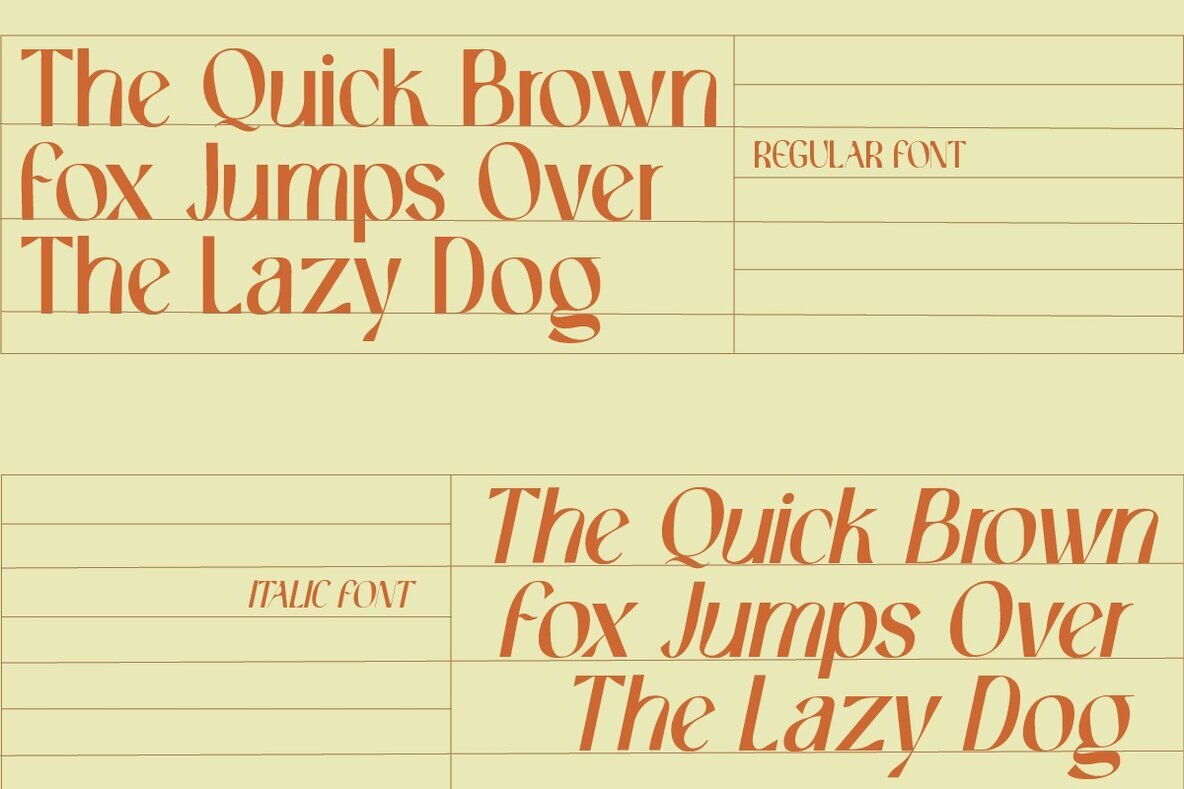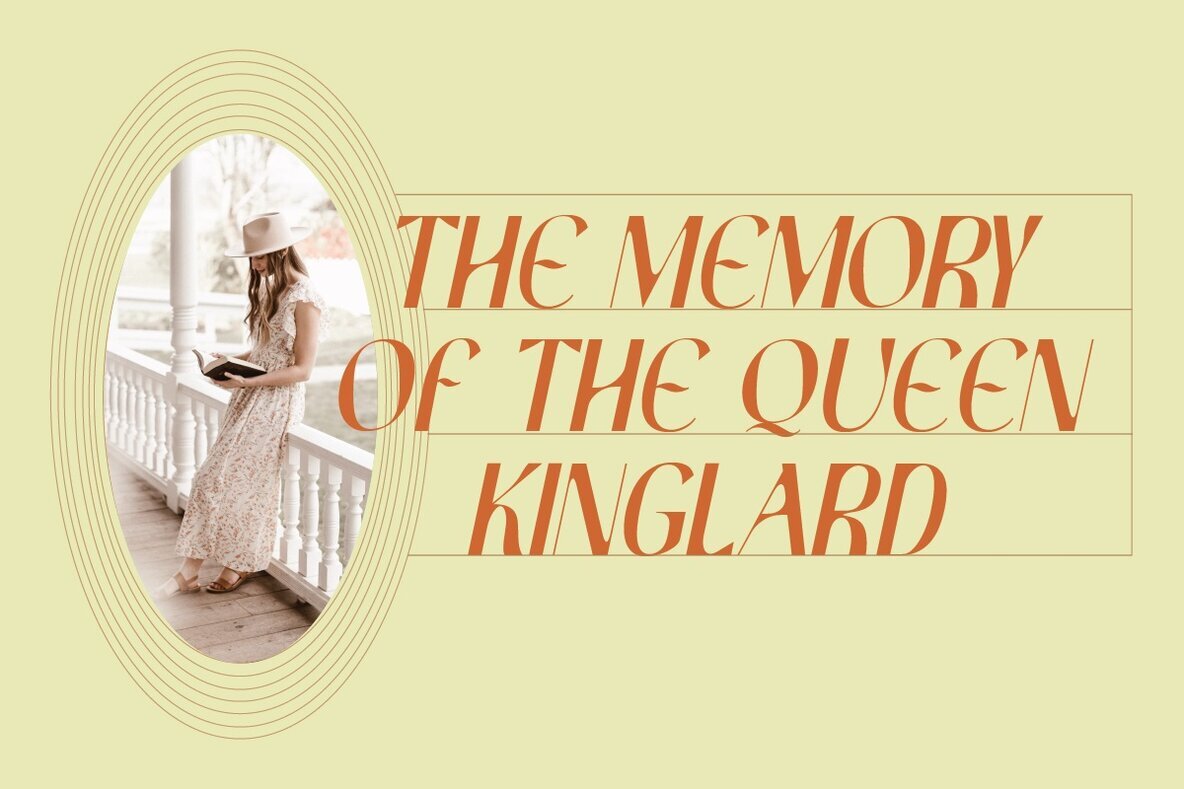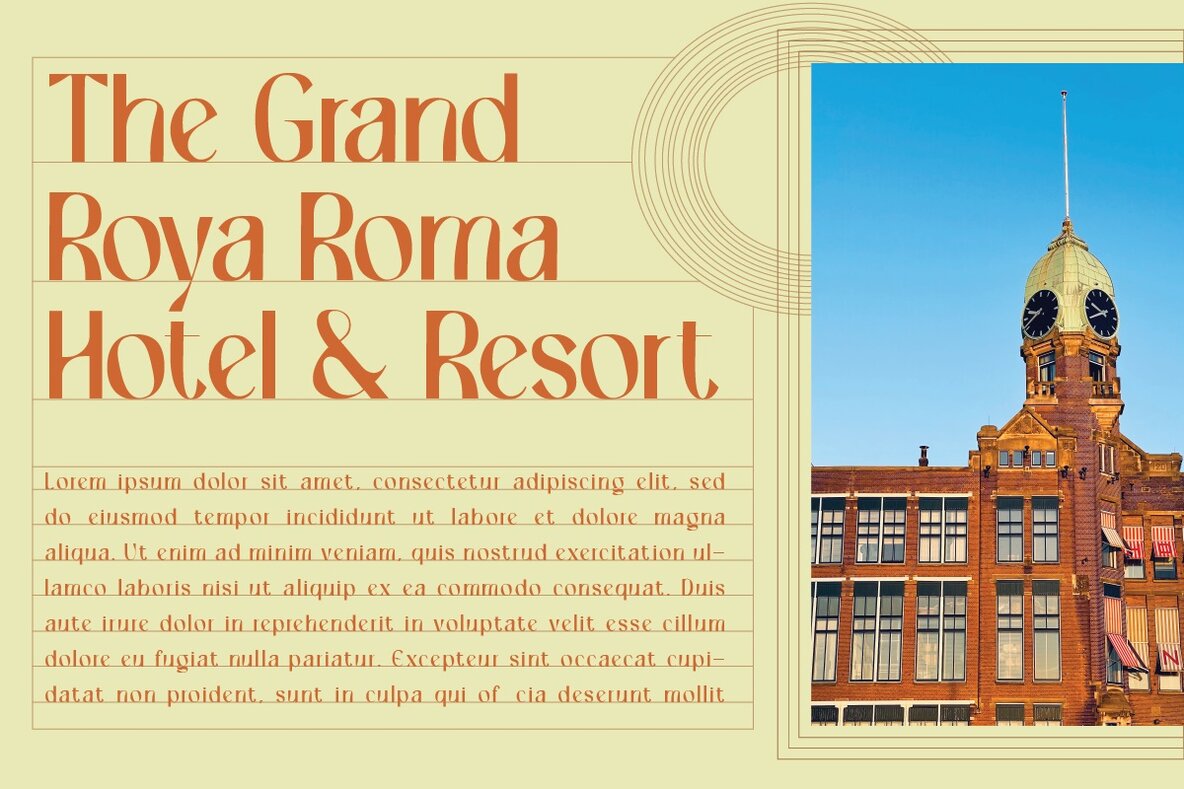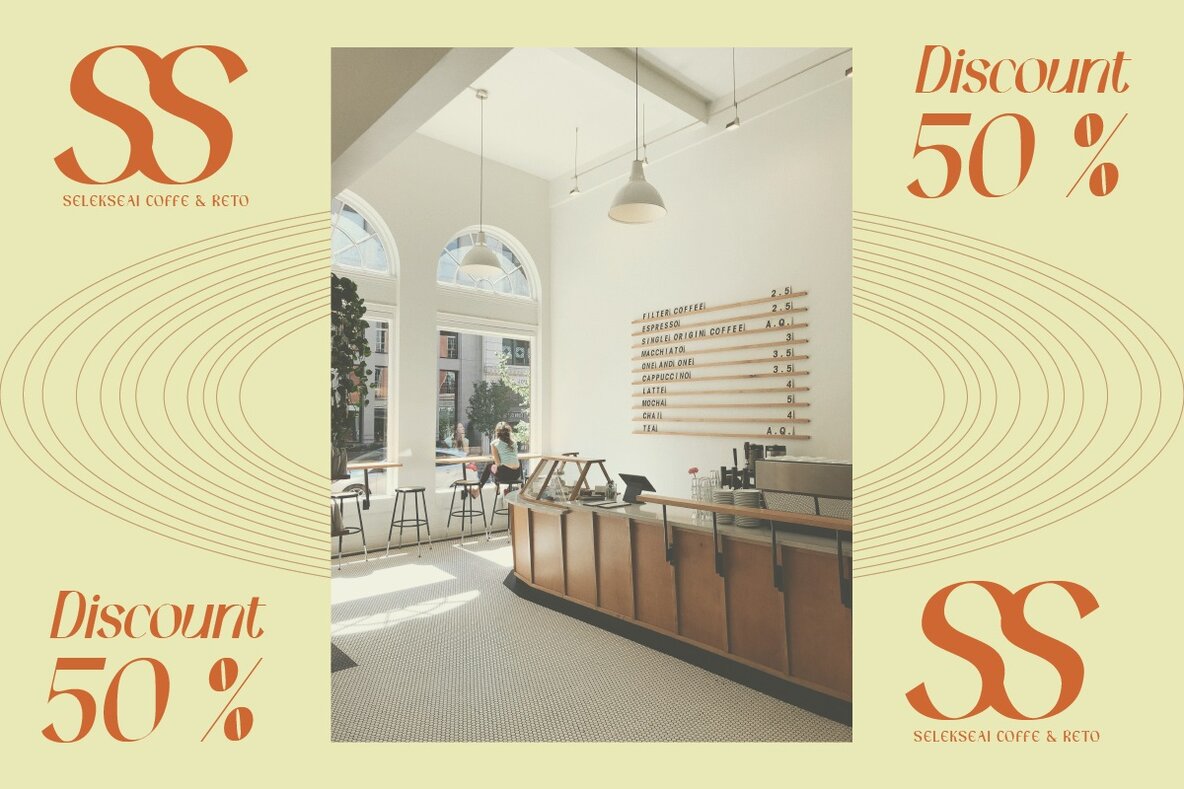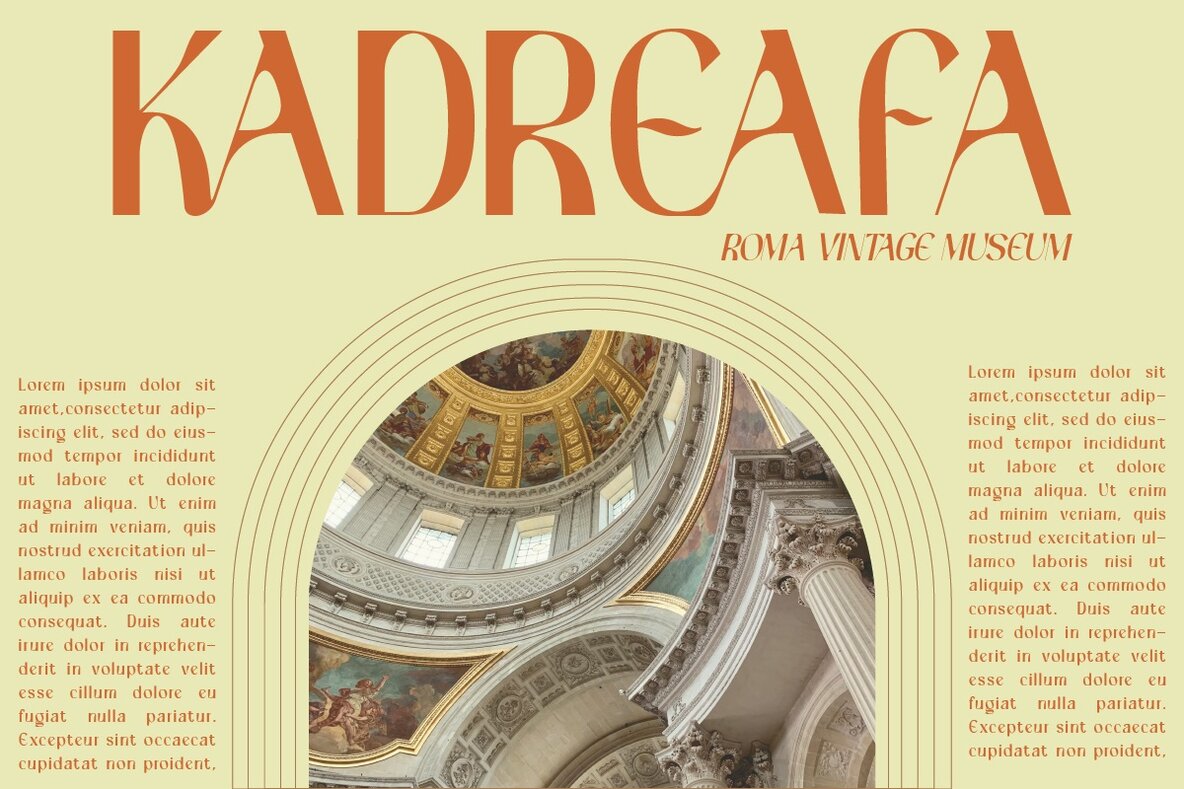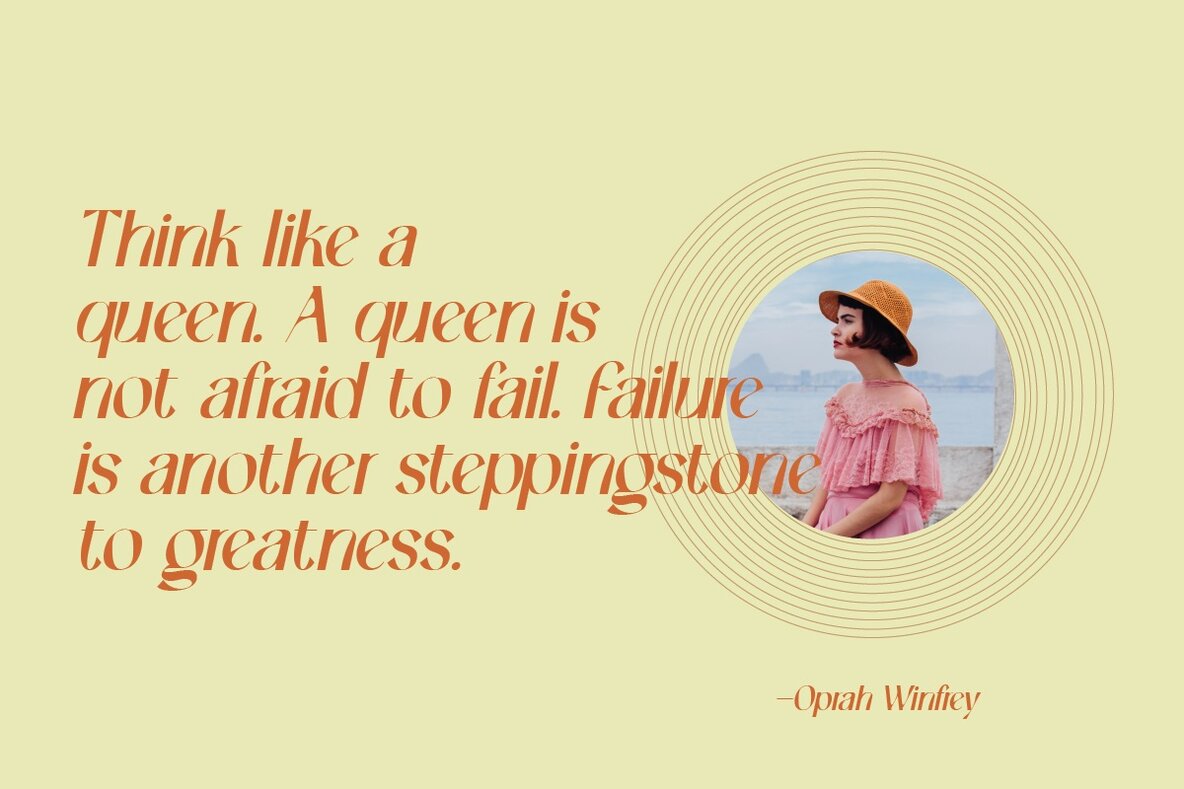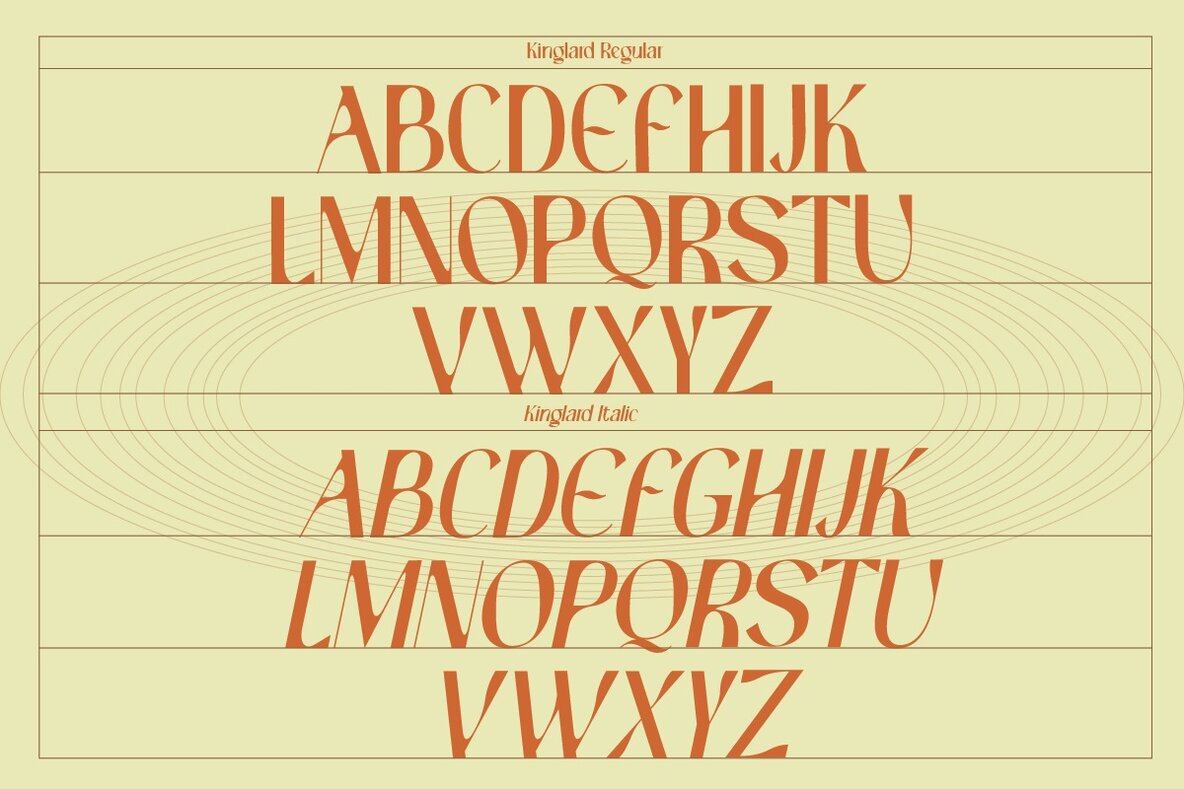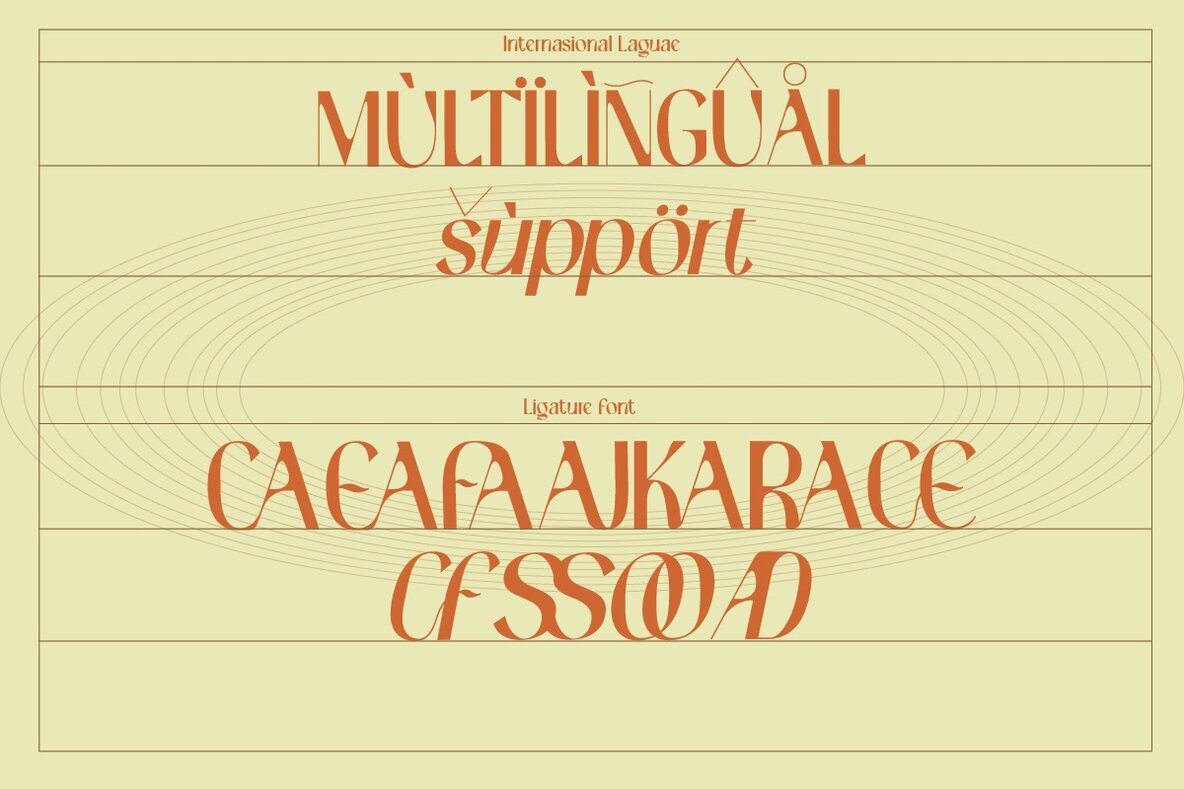
Kinglard Font
Kinglard by Muksal Creative is a vintage modern display font that embodies an air of timeless elegance. Its unique glyphs and ornamentation offer a refined aesthetic, while its versatility makes it apt for a range of design needs. Whether used in editorial projects, logo design, clothing branding, or as a stylish text overlay, Kinglard ensures your creations stand out with sophistication.Kinglard: A Vintage Modern Display Font